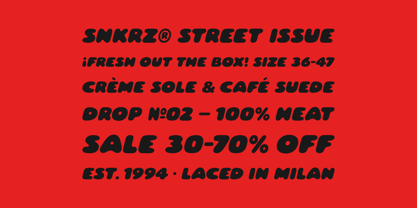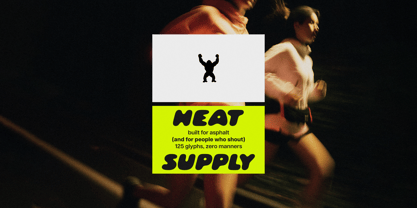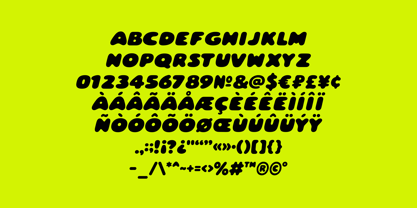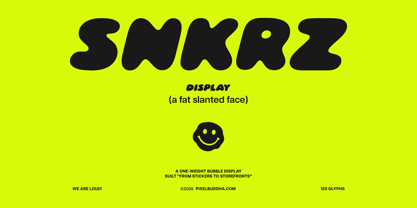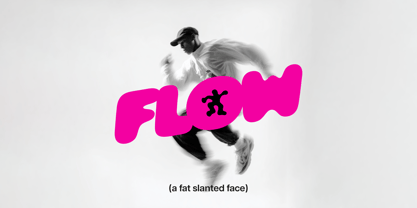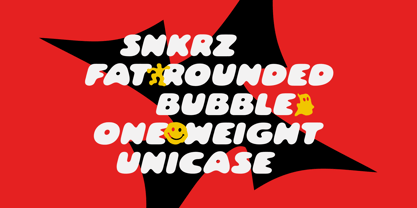
The Snkrz Font Family was designed by Nikita Kuznetsov and published by Pixelbuddha Studio. Snkrz contains 1 styles. More about this family
SNKRZ runs on pure streetwear culture energy — the fat lettering airbrushed on hype drops, spray-puffed on skate decks, and blown up across resale-shop windows. This chunky bubble display is unicase and one-weight: a single set of inflated, slightly slanted caps with no thin spots, every counter squeezed down to a pinhole.
Put it to work on sneaker-drop announcements, capsule tees and hoodies, skate-deck graphics, festival and tour merch, resale-store branding, and loud IG launch posts.
• Uppercase characters A–Z;
• Numerals, punctuation, currency, and reference symbols;
• Extended Latin: French, Spanish, Portuguese, Italian, German, Dutch, and the Nordic set (Ø, Æ, Å, Œ, Ñ, Ç);